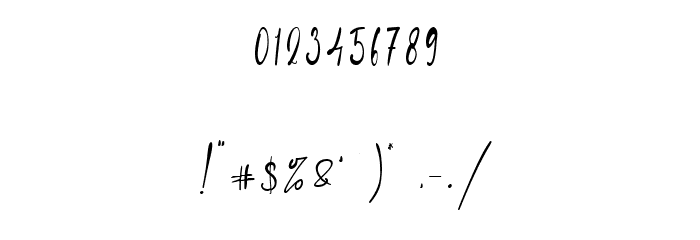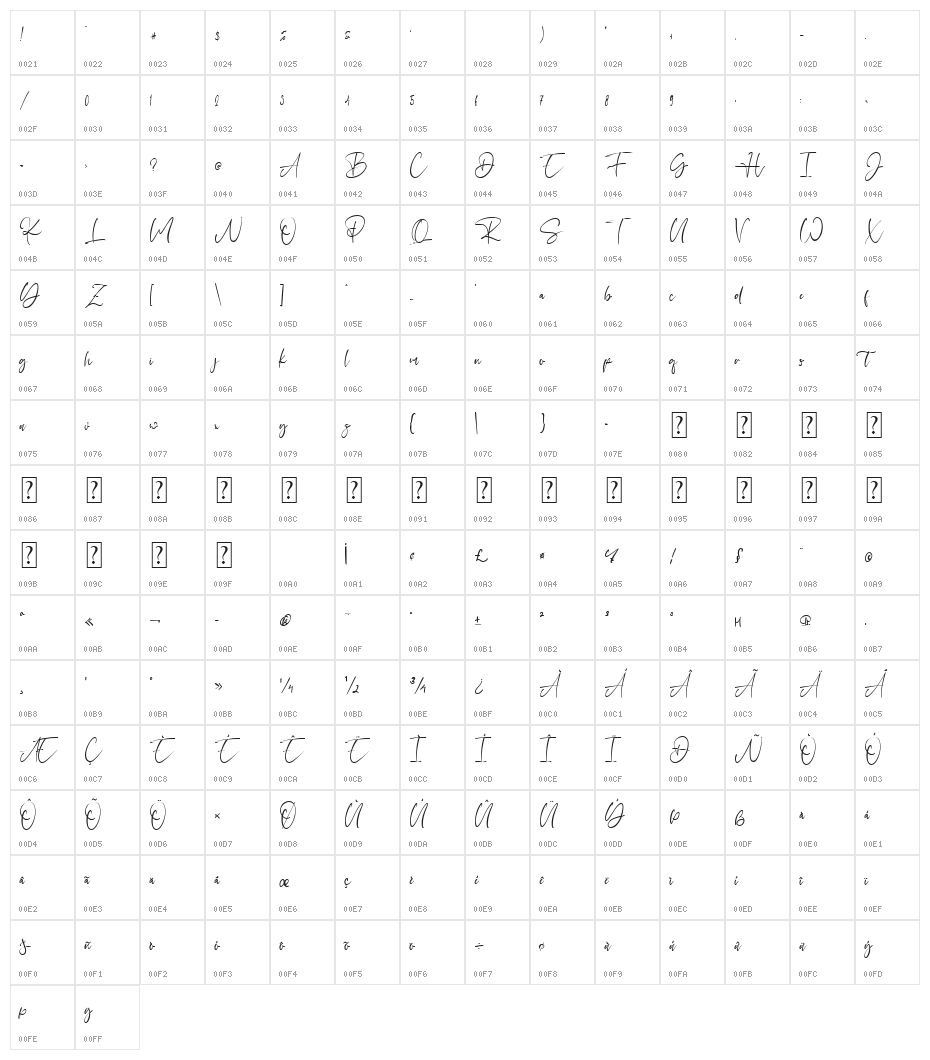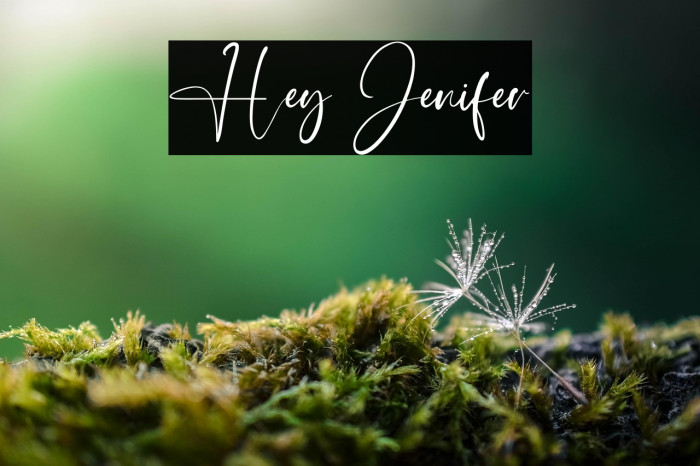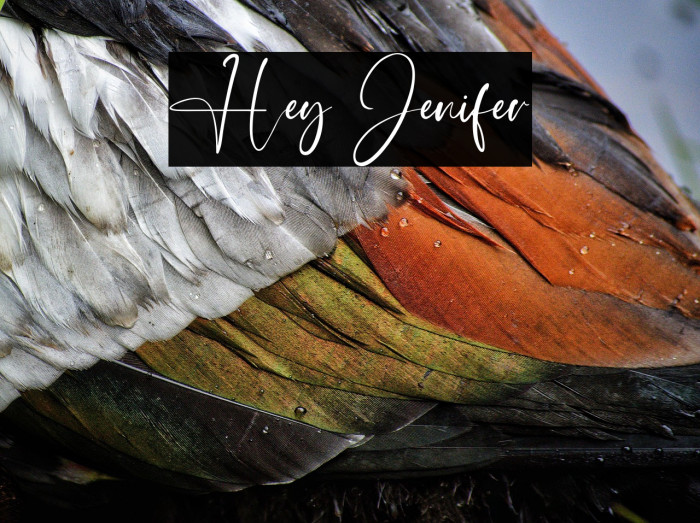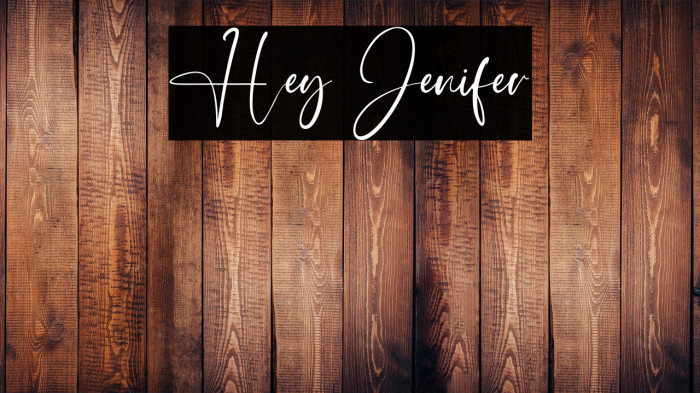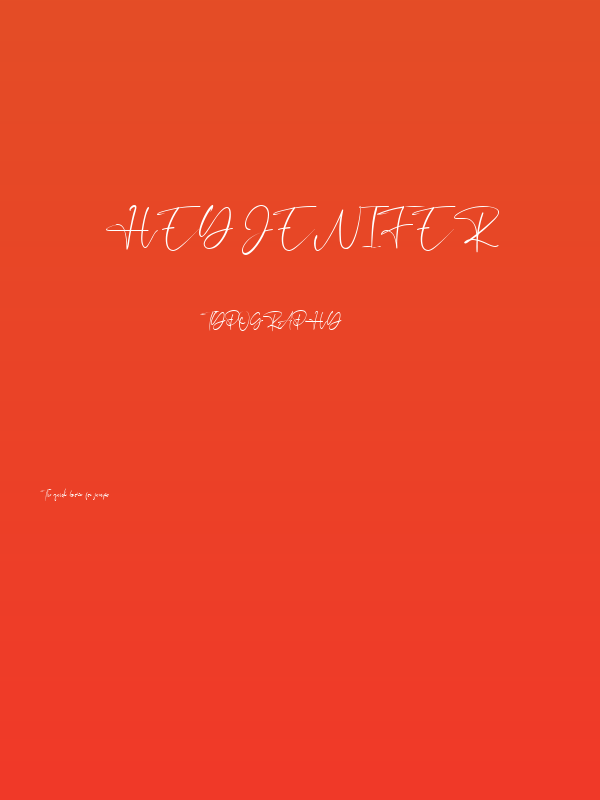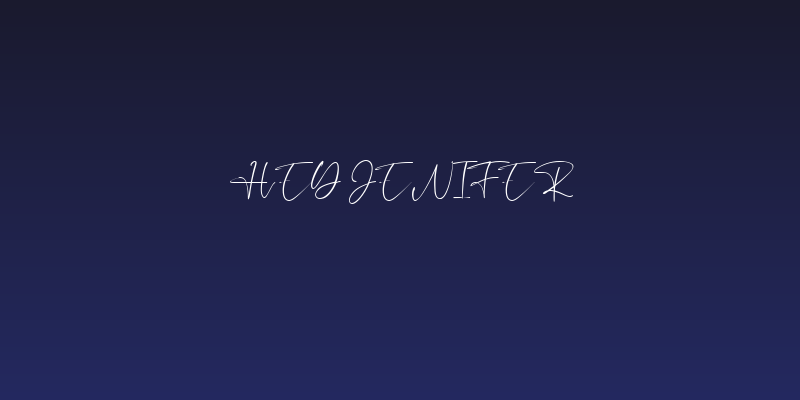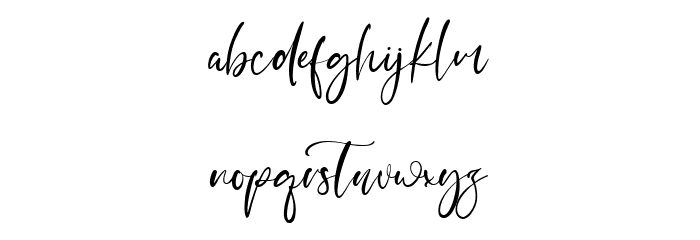
Hey Jenifer Font
Hey Jenifer Description
This font exudes a modern and elegant handwritten style, characterized by its flowing and interconnected letterforms. The uppercase letters are tall and graceful, with a slight slant that adds a dynamic feel. The lowercase letters maintain a consistent style, with loops and curves that enhance its handwritten appeal. Numbers are clear and maintain the same stylistic elements, ensuring readability. The special characters are thoughtfully designed to match the overall aesthetic, making this font versatile for various uses. Its delicate strokes and artistic flair make it suitable for projects that require a personal touch.
| Use Case | Logos, Invitations, Personal branding |
| Proposed Projects | Ideal for wedding invitations, personal branding, greeting cards, and elegant packaging designs. |